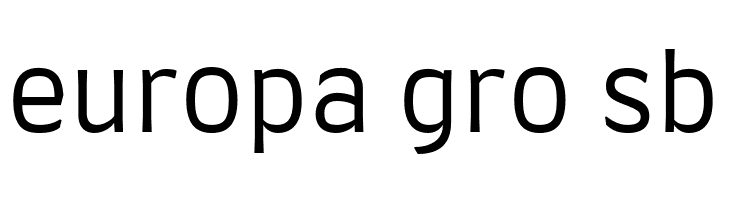
A modern, light sans-serif font with clean lines and excellent legibility.
A modern, semi-bold, condensed font with excellent readability and versatile applications.